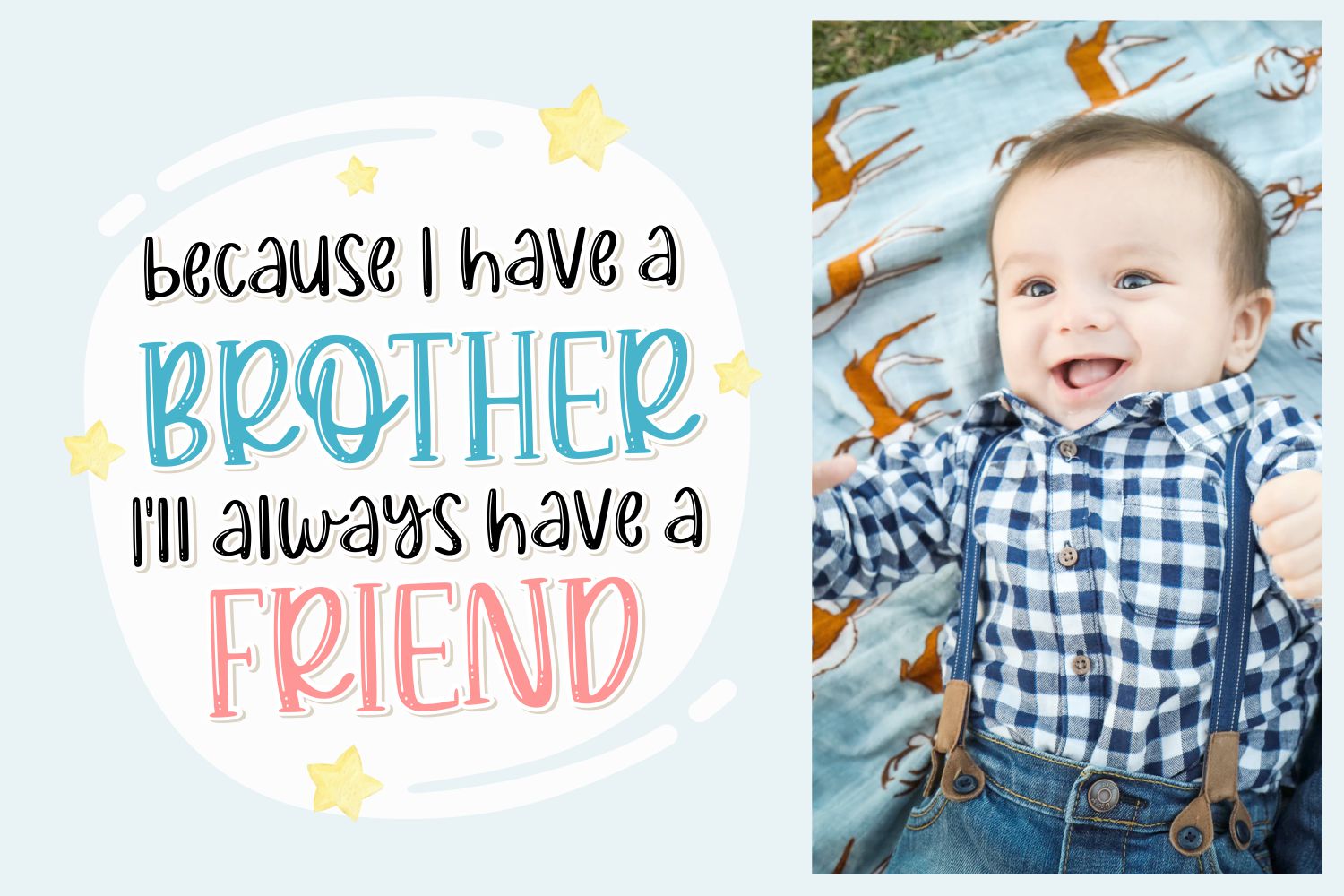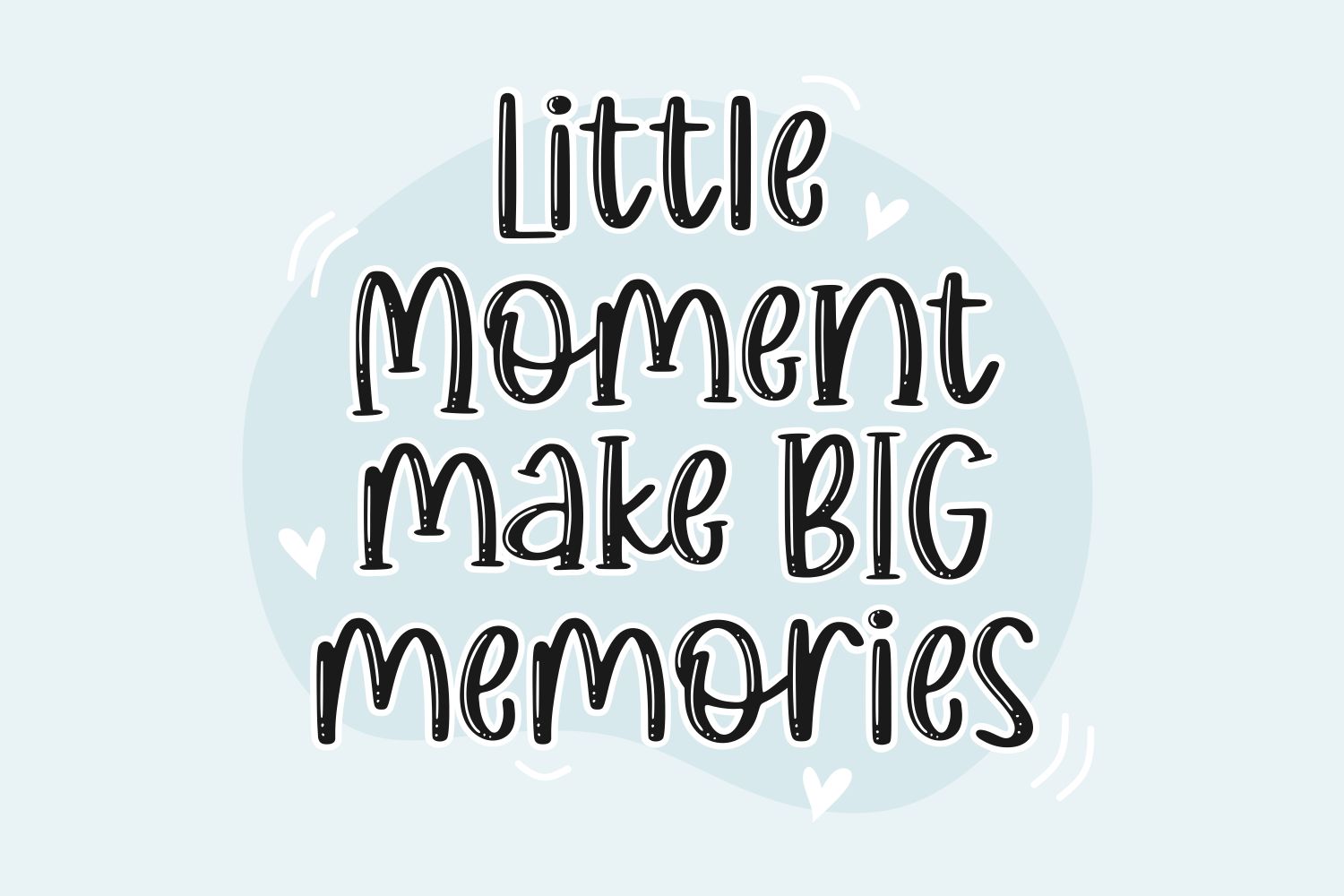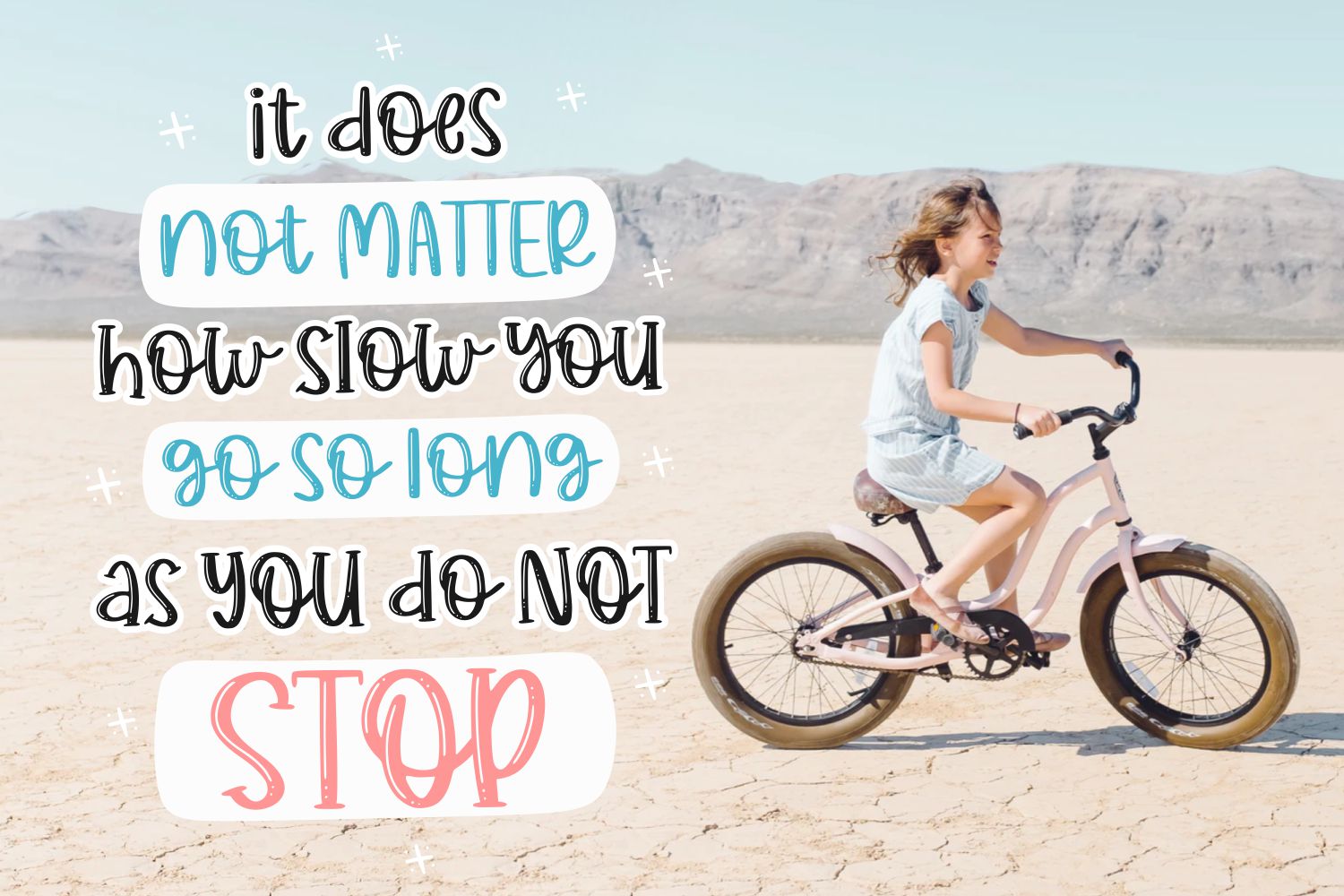
Moon Charming Display Font
This is a superb duo font (handwritten and serif). It looks friendly and fun, and it will make each of your projects seem authentic and unique!